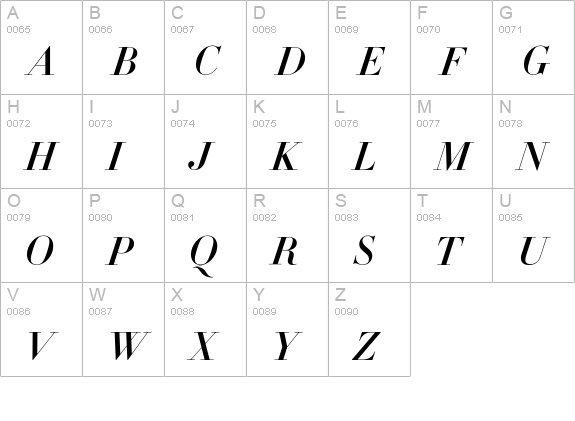
Didot-HTF-M24-Medium-Ital Font Details
Didot-HTF-M24-Medium-Ital is a balanced, medium-weight variant in the Didot typeface family \xE2\x80\x94 well suited to sub-headlines, navigation, and balanced editorial work.
Didot-HTF-M24-Medium-Ital is a sophisticated and elegant font that exudes a sense of class and refinement. Its medium weight and italic style make it perfect for adding a touch of sophistication to any design project. The sharp serifs and clean lines give this font a timeless and classic look that is sure to impress. This font is not only stylish but also versatile, making it suitable for a wide range of design applications including editorial design, branding, and invitations. Whether you are creating a wedding invitation, a magazine layout, or a logo, Didot-HTF-M24-Medium-Ital will elevate your design to the next level. The best part is that Didot-HTF-M24-Medium-Ital is available for free download at FontsMarket.com. Now you can access this premium font without breaking the bank, making it a valuable addition to your font library. Don't miss out on the opportunity to enhance your designs with this beautiful and timeless typeface. Download Didot-HTF-M24-Medium-Ital today and elevate your design projects to new heights.